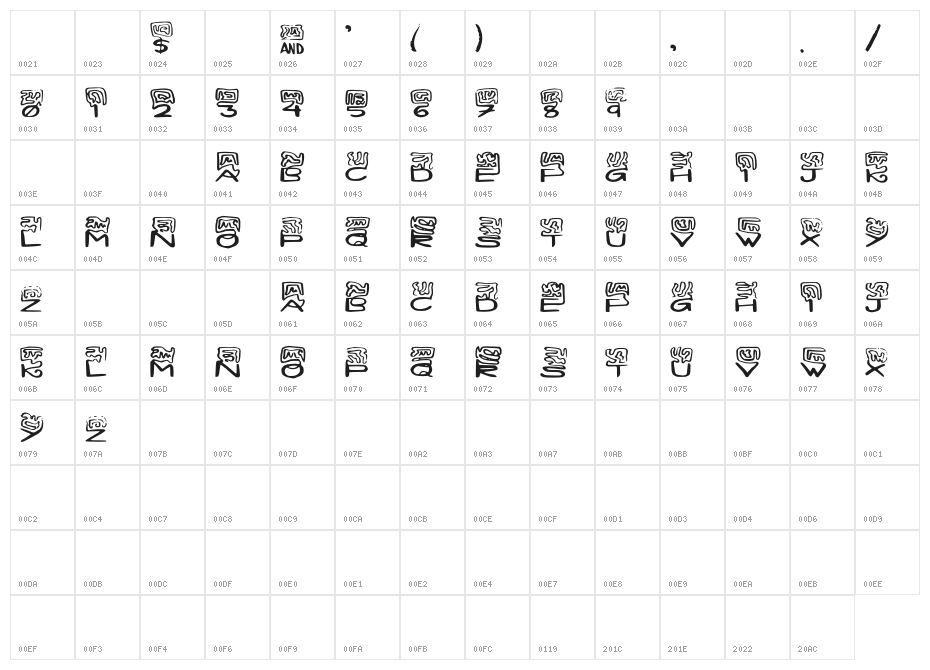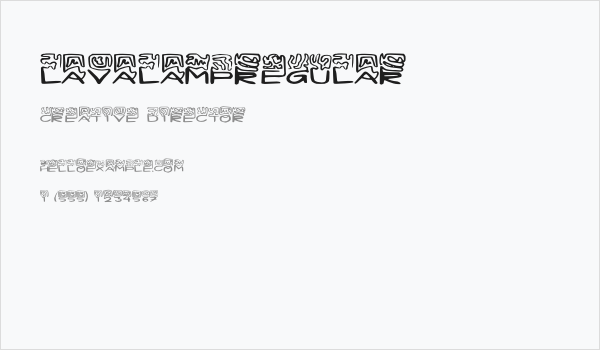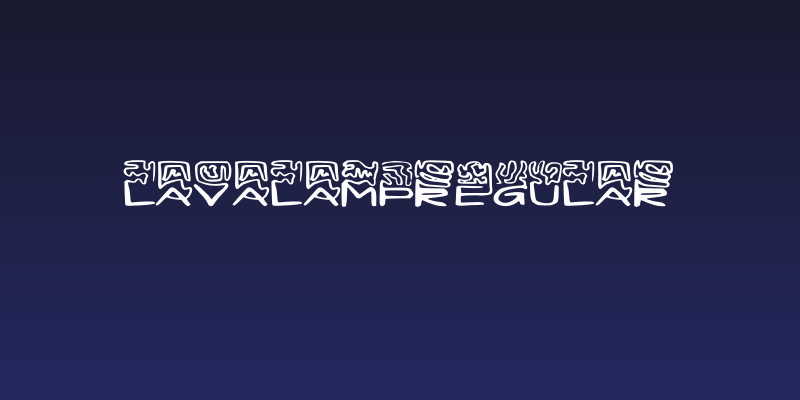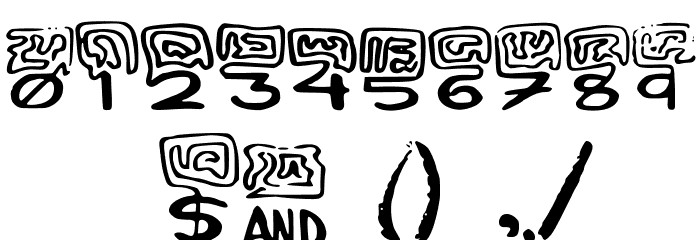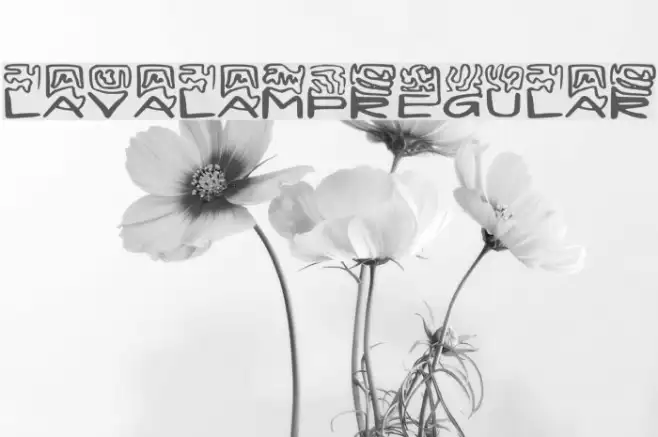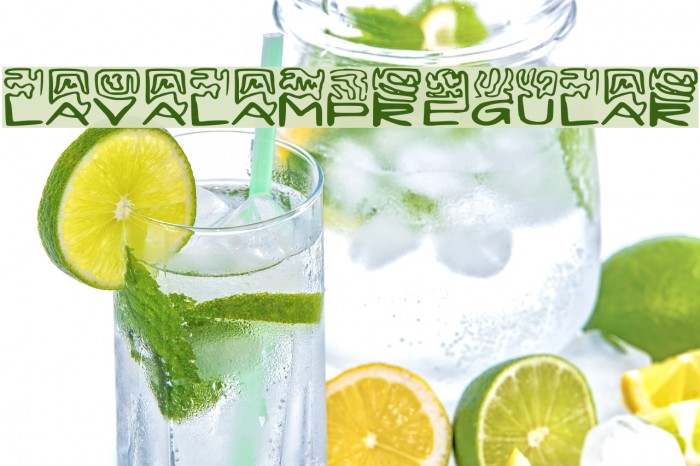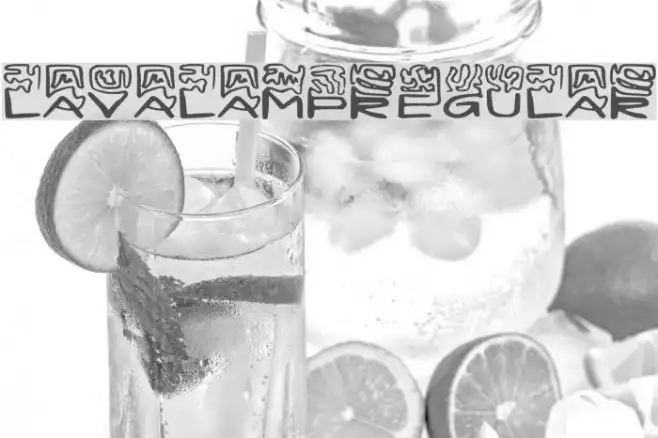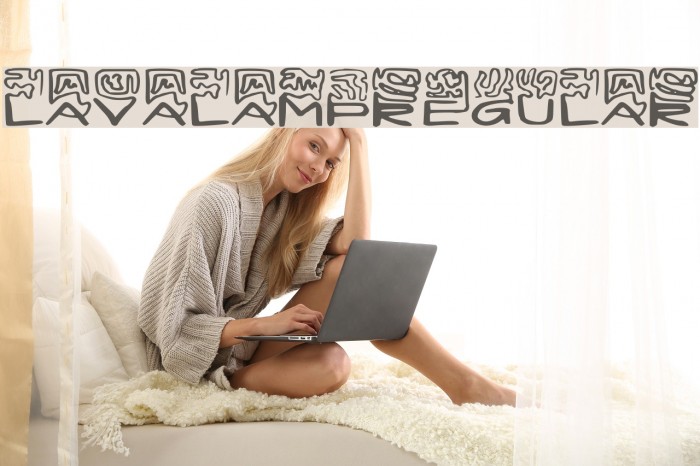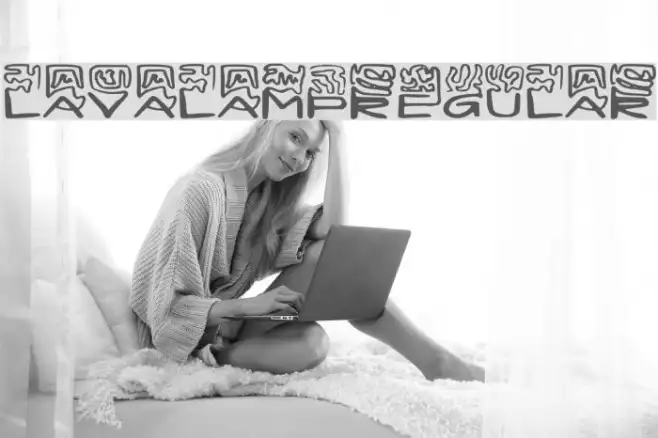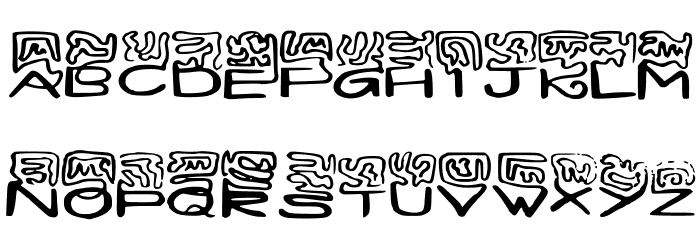
LAVALAMP-Regular Font
LAVALAMP-Regular Description
This font features a playful and dynamic design, reminiscent of the fluid and organic shapes found in lava lamps. The characters are bold and have a unique, wavy appearance that gives them a sense of movement and energy. Each letter is distinct, with varying line thicknesses that create a lively and engaging visual effect. The font's style is both modern and retro, making it versatile for a range of creative projects. Its boldness ensures high visibility, while the quirky design adds a touch of fun and creativity.
| Overall Style | Modern, Retro |
| Proposed Projects | Ideal for posters, album covers, event invitations, and any project seeking a fun, retro vibe. |